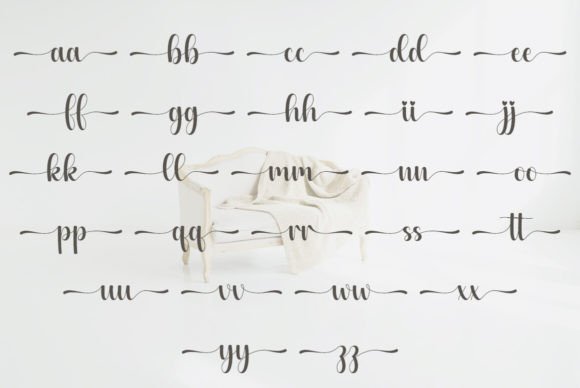
Melody Font
Melody is a beautiful script font that brings a touch of elegance and charm to your creative projects. Its graceful, flowing lines make it an ideal choice for designers who want to add a soft, personal feel to their work. Whether you’re working on a logo, a brand identity, or eye-catching social media content, Melody can help you communicate your message with style and sophistication.
This elegant handwritten font was carefully designed to maintain a natural and smooth writing feel. It’s perfect for wedding invitations, greeting cards, and business cards—anywhere you want a delicate and refined look. With its fine strokes and thoughtful letterforms, Melody adds a heartfelt, human touch to every design it’s used in.
Melody also works well for product packaging, advertisements, and more. Its versatile design ensures it looks beautiful both in print and digital formats. Whether you’re a professional designer or a DIY creative, this font is sure to enhance the overall feel of your projects with grace.